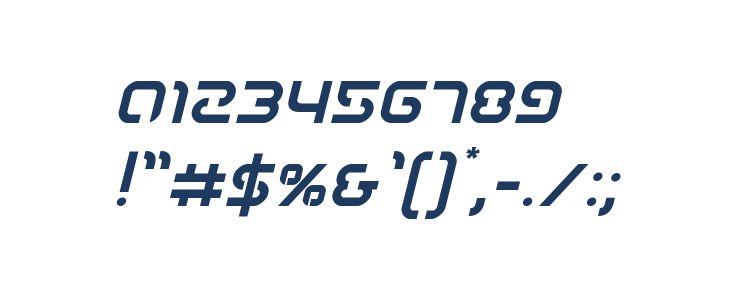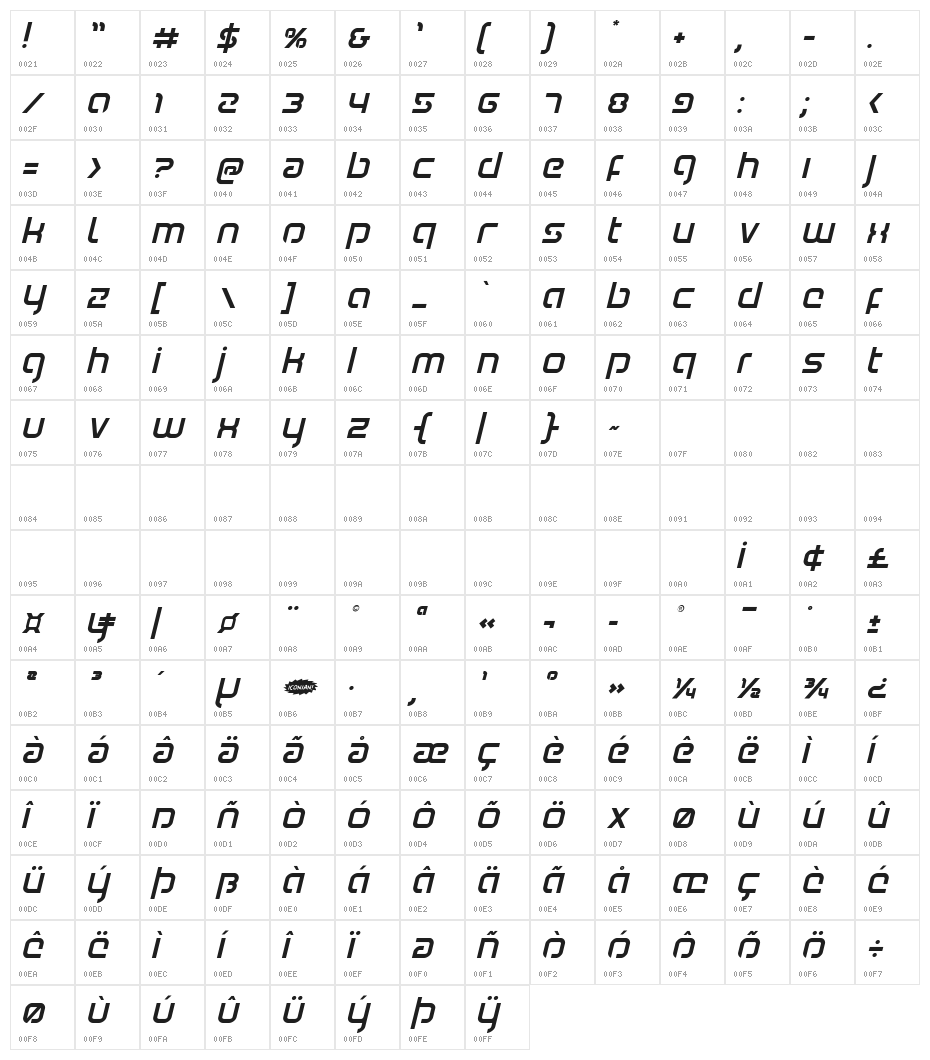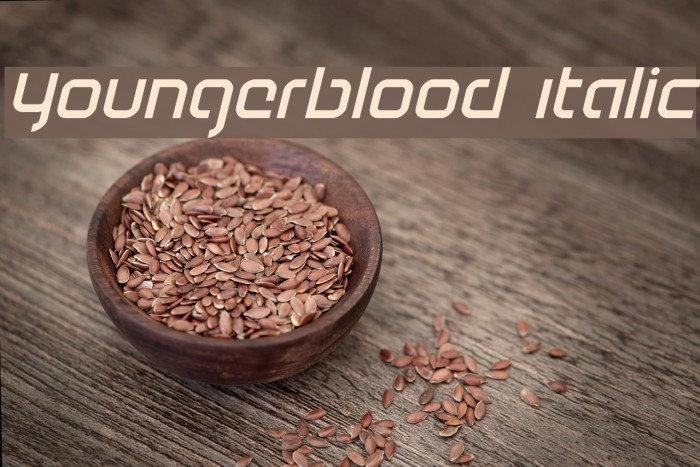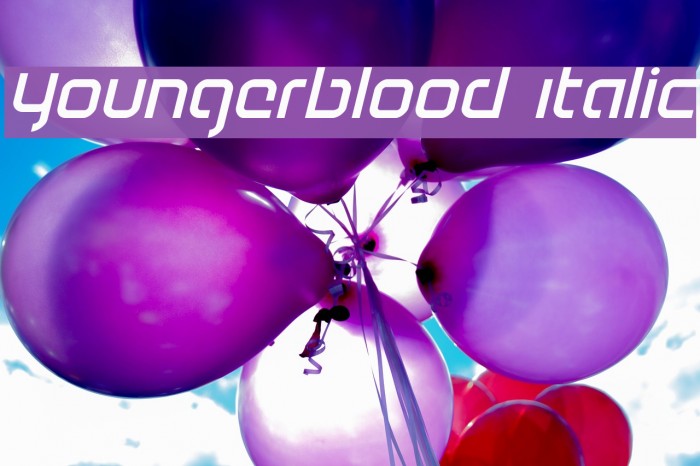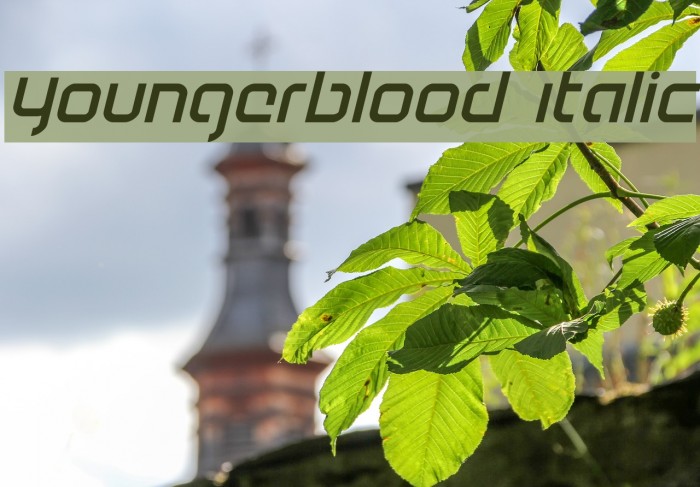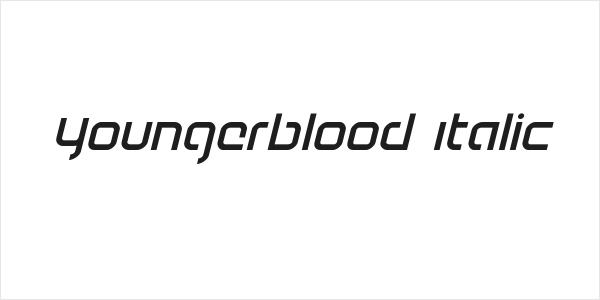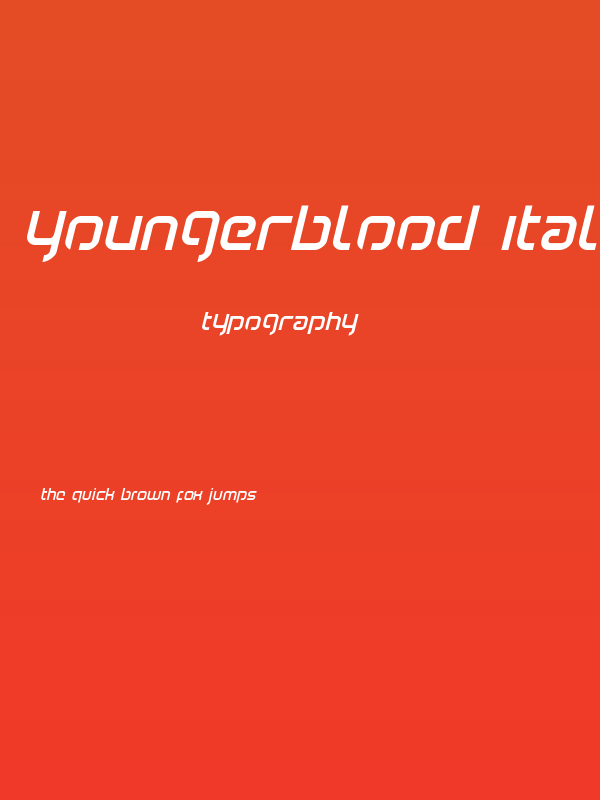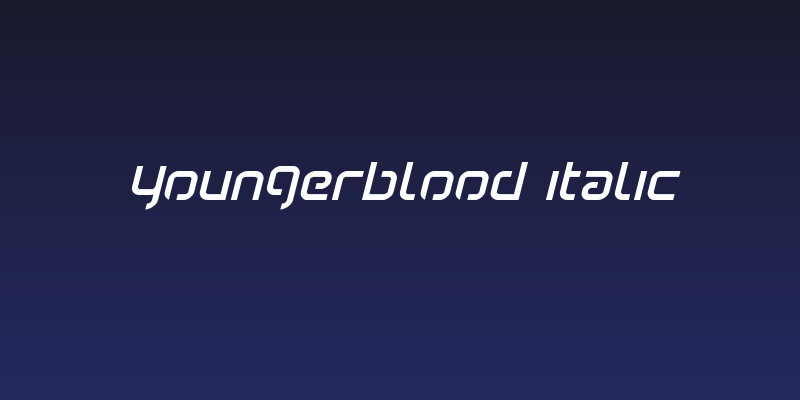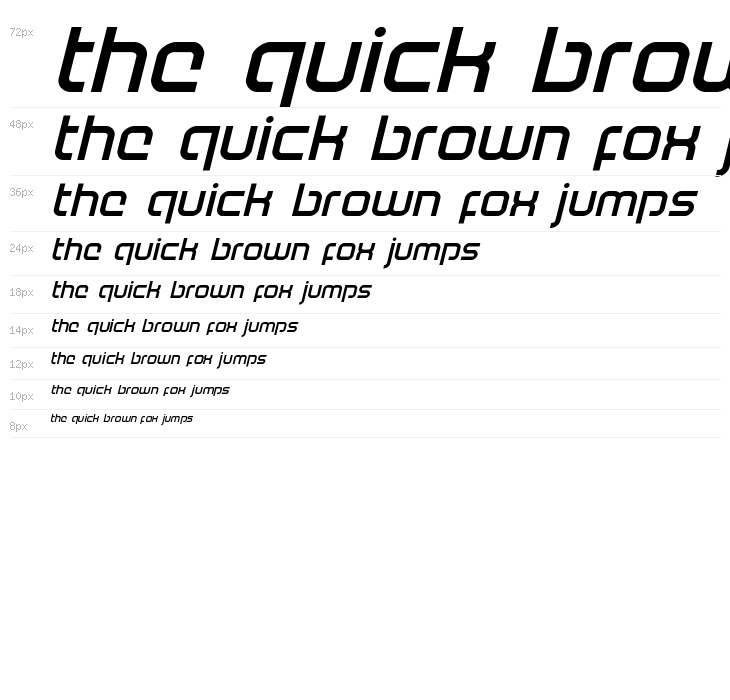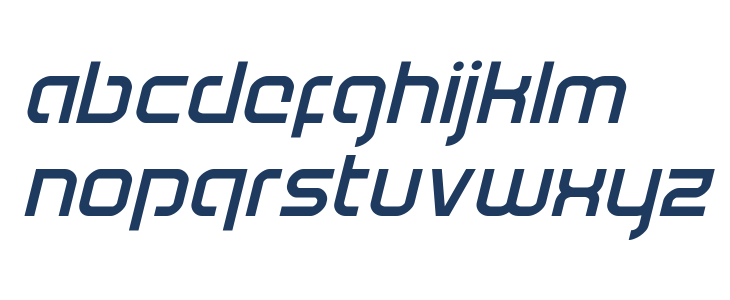
Youngerblood Italic Font
Youngerblood Italic Description
This font features a sleek, modern design with a distinct italic slant, giving it a dynamic and forward-moving appearance. The characters are slightly condensed, enhancing the streamlined look. The strokes are consistent in weight, providing a uniform and cohesive style. The font includes both uppercase and lowercase letters, numerals, and a variety of special characters, making it versatile for different uses. Its futuristic aesthetic is emphasized by the angular cuts and smooth curves, creating a unique blend of sharpness and fluidity.
| Use Case | Logos, Headlines, Branding |
| Proposed Projects | Ideal for tech branding, sports team logos, futuristic designs, and dynamic advertising campaigns. |